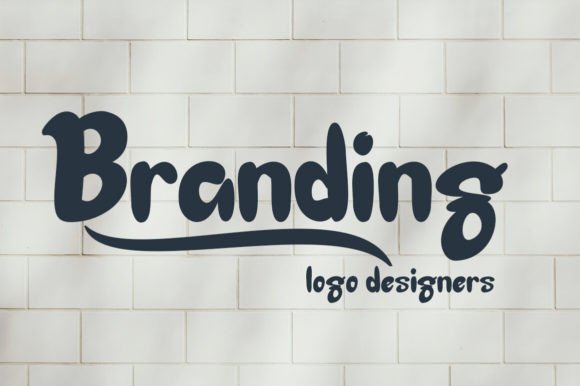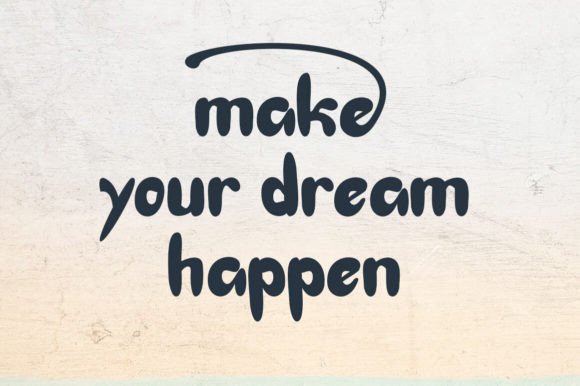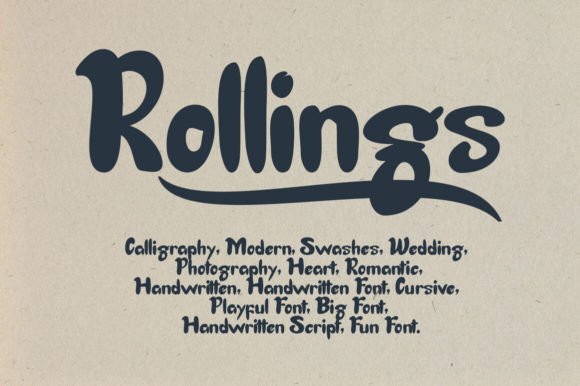
Introduction to Rollings Font
As a designer, there’s nothing quite like the thrill of bringing a creative project to life. You’ve poured your heart and soul into every detail, from the initial concept to the final touches. And then, it’s time to choose the perfect font to tie everything together. That’s where the Rollings Font comes in – a versatile and stylish design that’s sure to elevate your digital creations.
| 👤 Author | Greentype |
Whether you’re crafting digital wedding invitations, designing a new logo for your online shop, or simply need a high-quality font for your social media posts, the Rollings Font is an excellent choice. With its clean lines, elegant curves, and transparent background, this font is a design resource that’s both free to download and easy to use.
For designers, the Rollings Font is a valuable addition to any toolkit. Its high-quality design makes it perfect for printing on a variety of materials, from clothing products and accessories to business cards and watermarks. With the Rollings Font, you can create stunning visual elements that will help your brand stand out in a crowded marketplace.
Key Features of Rollings Font
- Designed with a unique, playful aesthetic suitable for modern designs
Honest Review: Rollings Font
One of the things that stands out about the Rollings Font is its versatility. It’s perfect for a wide range of design projects, from logos to typography-based artwork. The font also features a transparent background, which makes it super easy to use in combination with other design elements.
- High-quality design: The Rollings Font is incredibly crisp and clear, making it perfect for any design project.
- Transparent background: This feature makes it easy to use the font in combination with other design elements.
- Limited font weights: The Rollings Font only comes in a few different weights, which may limit its use in certain design projects.
- No italic or bold variations: While the font is available in a few different weights, it’s not available in italic or bold variations.
Overall, I’m really impressed with the Rollings Font. While it may have a few limitations, its high quality and versatility make it a great addition to any designer’s toolkit. I’d definitely recommend it for any creative project that requires a high-quality font.
The Rollings Font is a versatile design resource that can be used in a variety of creative projects, including logos, branding materials, and digital graphics. It’s especially useful for designs that require a high-quality, transparent font with a unique style.